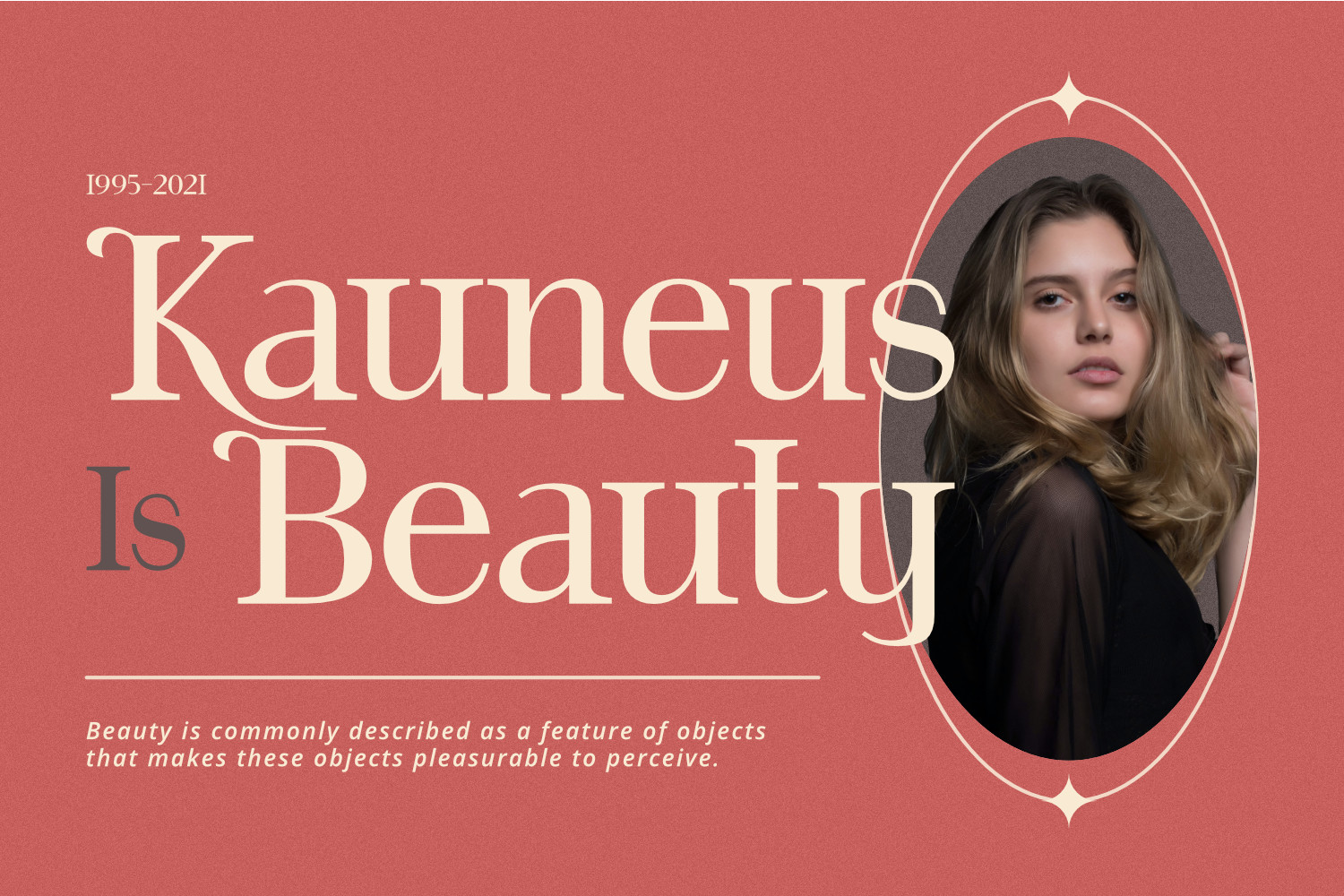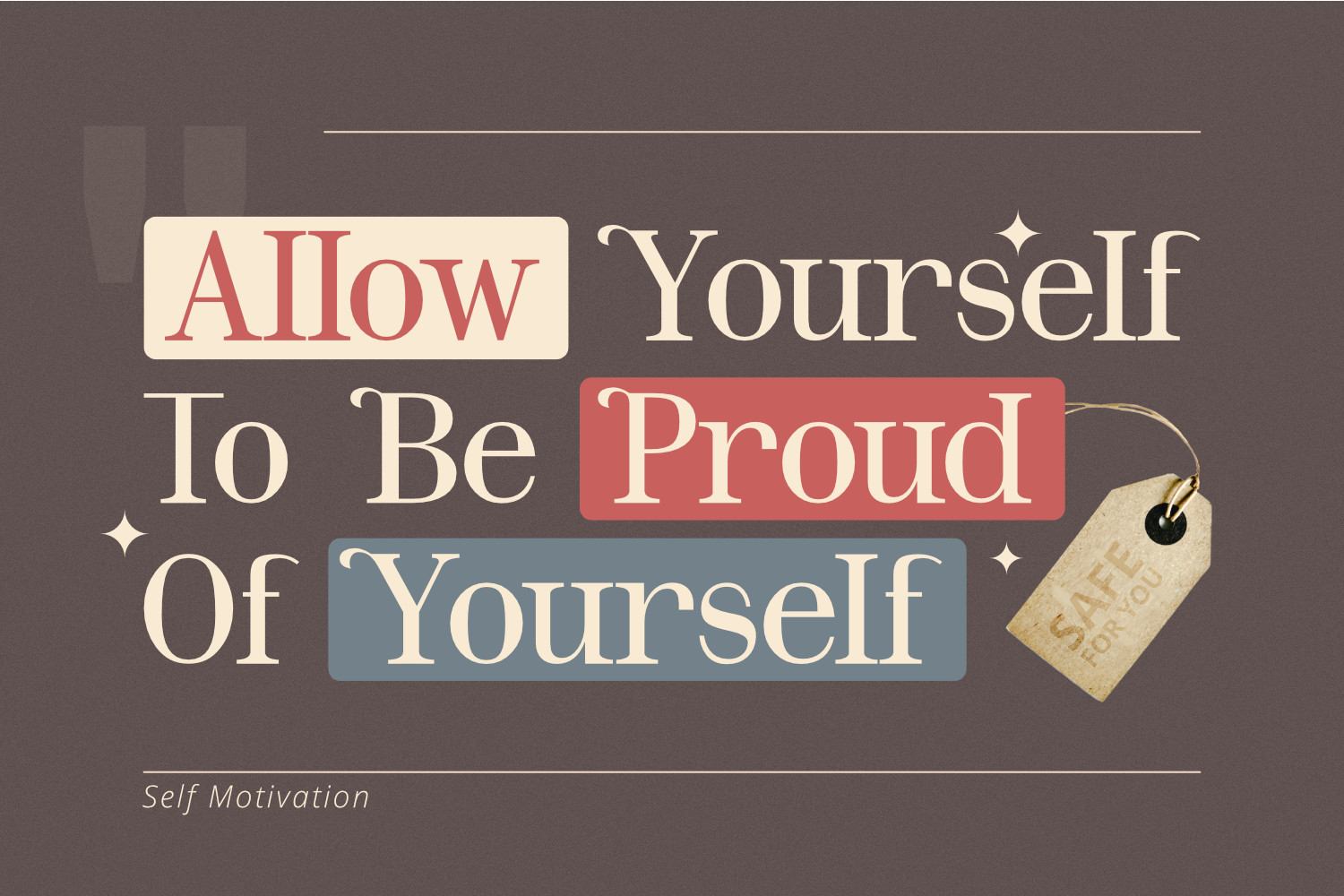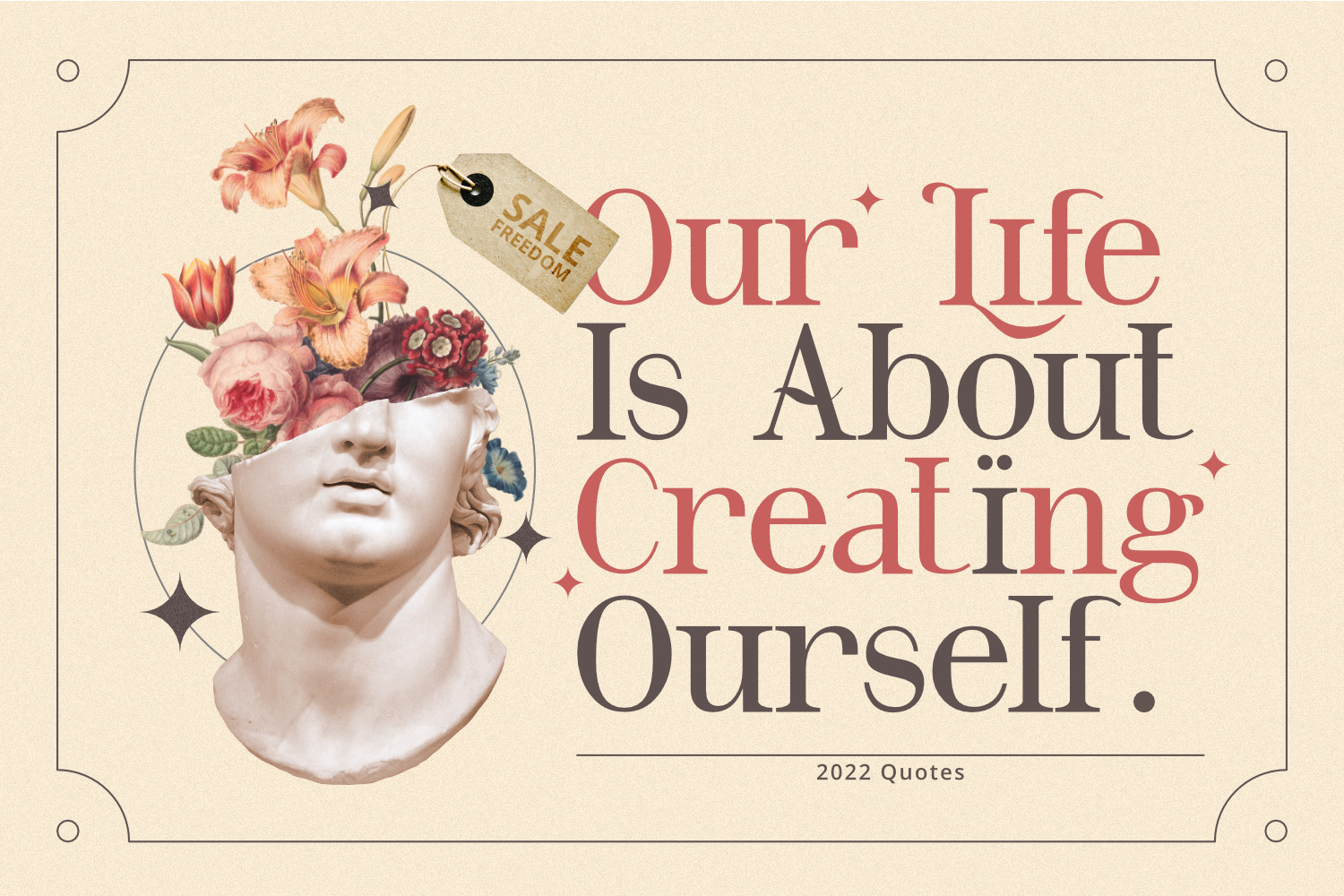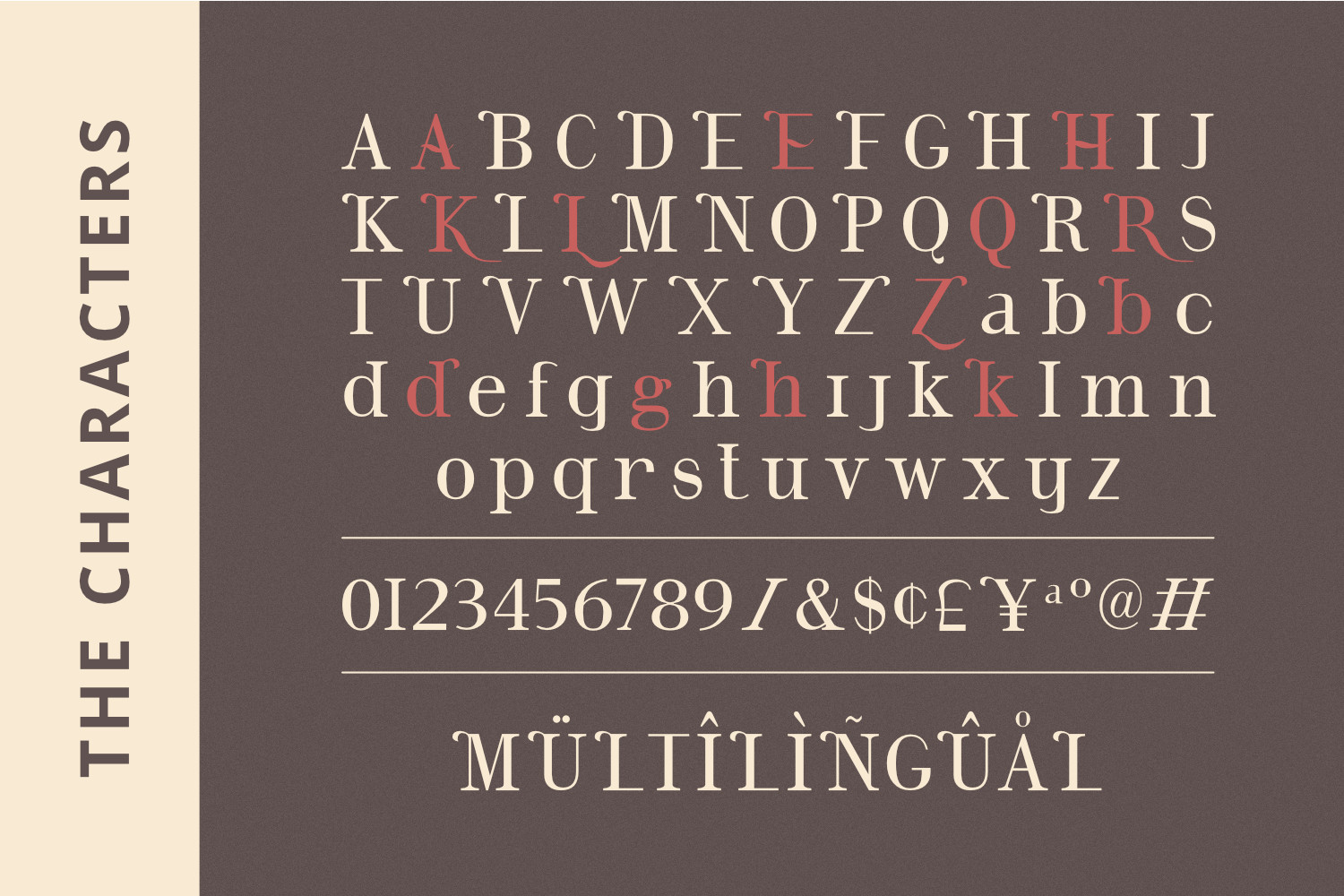
Laophe is a refined modern serif font that exudes timeless charm and soft elegance. With its sophisticated curves and slightly extended serifs, this typeface blends classic readability with graceful flourishes, making it ideal for editorial layouts, branding, and quotes. The font’s balanced proportions and high contrast strokes add a sense of poise and beauty to any visual composition.
Equipped with alternate characters and multilingual support, Laophe offers flexibility for designers who crave subtle yet impactful type choices. Whether used for packaging, lifestyle designs, or fashion-forward promotions, this font adds a polished, editorial touch while remaining distinctively stylish.